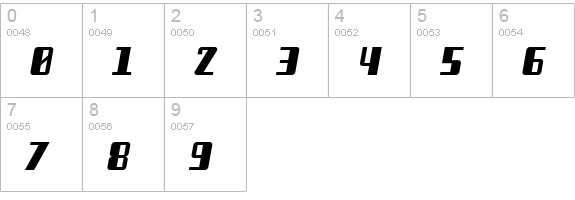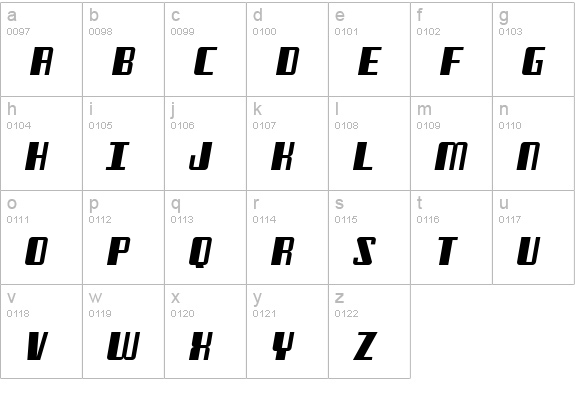
Freezer BTN Oblique is a distinctive, italic variant in the Freezer typeface family \xE2\x80\x94 well suited to design and typography projects.
Freezer BTN Oblique font is a modern and stylish typeface that exudes elegance and sophistication. Its sleek design and slanted style add a touch of flair to any project, making it perfect for branding, advertising, and design purposes. The unique oblique angle of the letters gives this font a dynamic and eye-catching look that is sure to make your text stand out. What makes Freezer BTN Oblique font even more appealing is that it is available for free download at FontsMarket.com. This means you can easily access this high-quality font without any cost, allowing you to enhance your projects with a professional and polished look. Don't miss out on the opportunity to elevate your designs with the sleek and stylish Freezer BTN Oblique font, now available for free at FontsMarket.com.